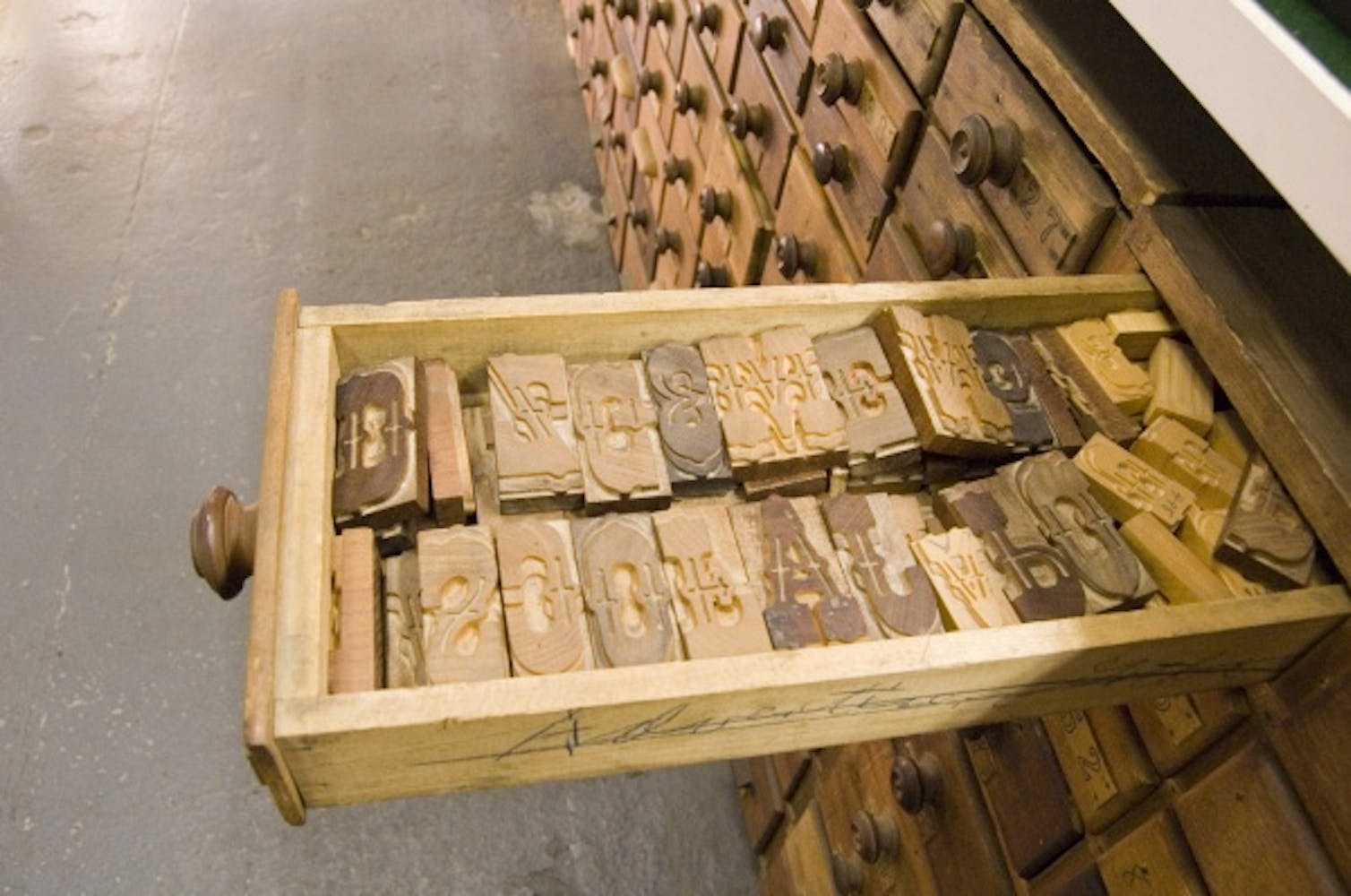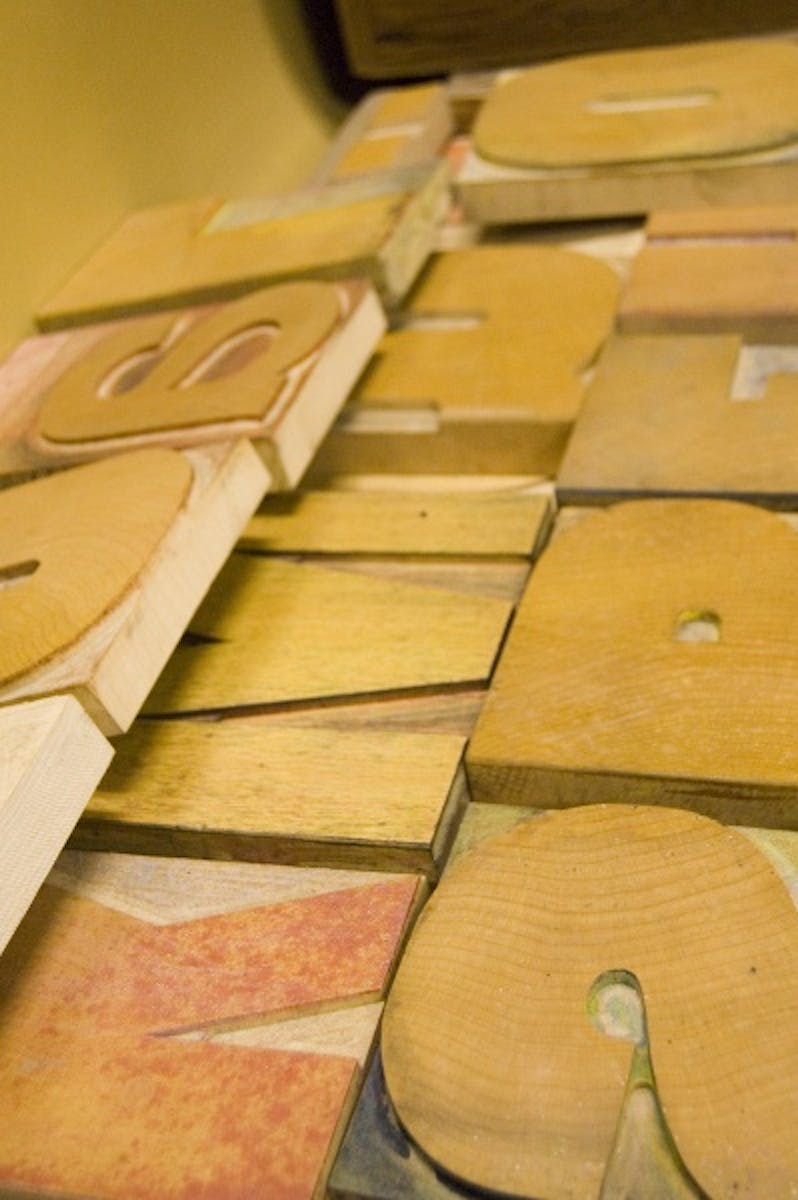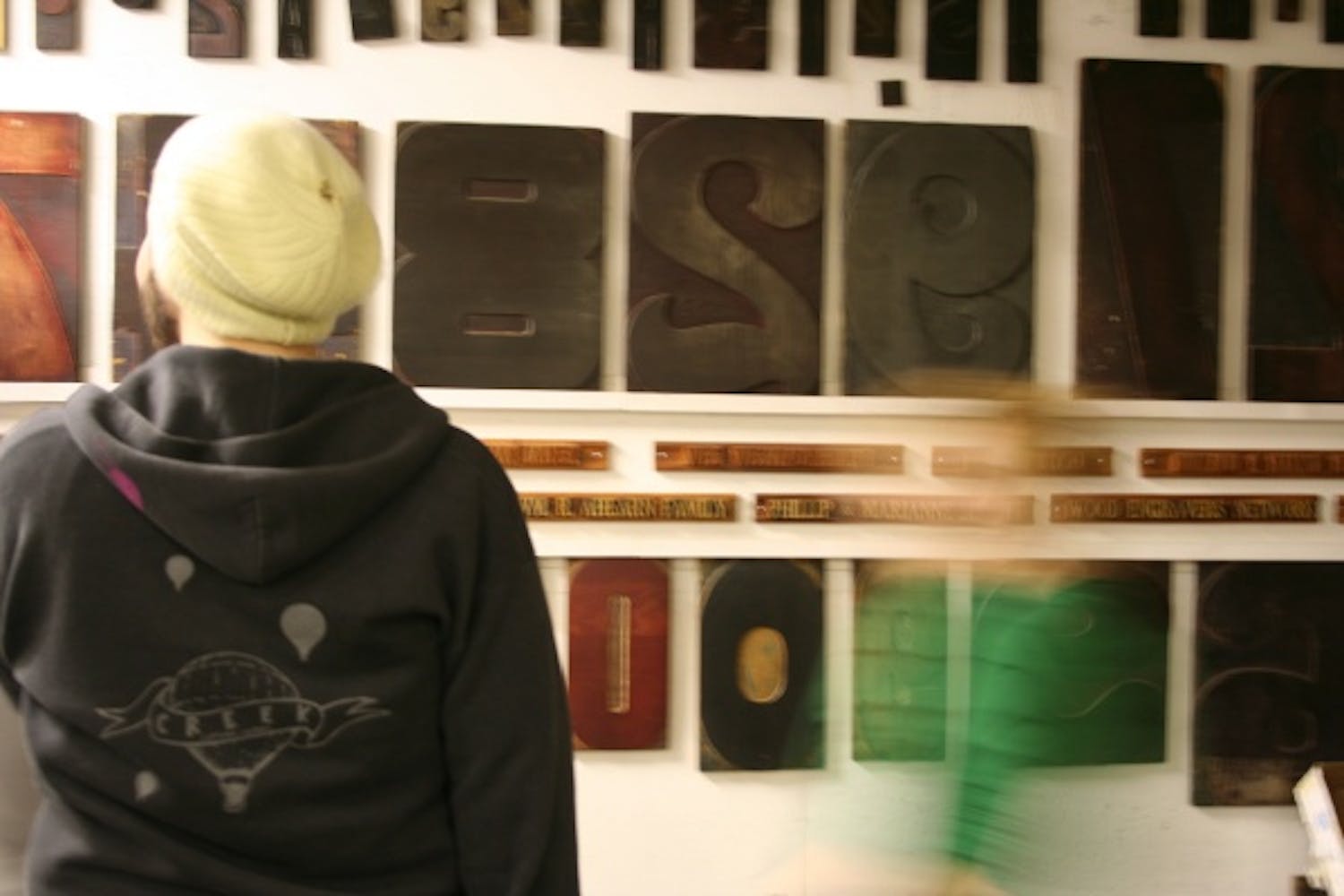
Although the heyday of wood type was more than a century ago (think “Wanted” posters and circus broadsides), its revival and preservation carries on today. A new film, Typeface, chronicles this effort by documenting the Hamilton Wood Type Museum in Two Rivers, Wisconsin, which houses one of the premier wood-type collections in the world and runs letterpress workshops for designers and artists from across the country. Join us for Drawn Here: Contemporary Design in Conversation, featuring a special sneak preview of the documentary film and a post-screening discussion with director Justine Nagan; Bill Moran, St. Paul–based designer and letterpress guru who cowrote a book documenting Hamilton; and Greg Corrigan, designer and technical director of the Hamilton Museum.